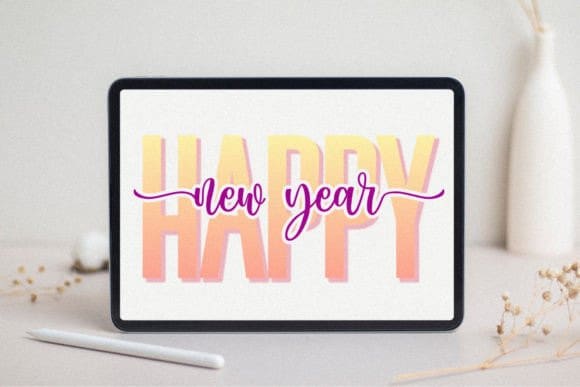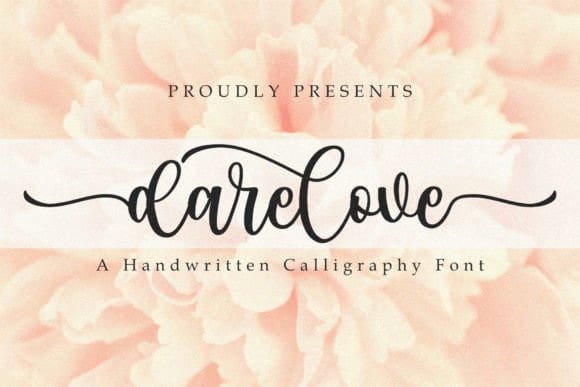
Darelove Script Font
Darelove Script Font is a modern calligraphy font that has beautiful and unique ligatures and alternates. This font is perfect for wedding designs and more. It is inspired by the elegance and romance of handwritten letters, and it will add a touch of charm and sophistication to your projects.
Darelove Script Font is one of the best modern calligraphy fonts available, as it has a smooth and natural flow, and it comes with many features and options to customize your designs. You can choose from uppercase and lowercase letters, numbers and symbols, swashes and ornaments, and more than 100 ligatures and alternates to create stunning combinations. Darelove Script Font also supports multilingual characters, so you can use it for different languages.
If you are looking for a modern calligraphy font that will make your wedding designs stand out, you should try Darelove. This font is easy to use and install, and it will give your projects a professional and elegant look. You can download Darelove today and start creating your own beautiful designs with this amazing font.